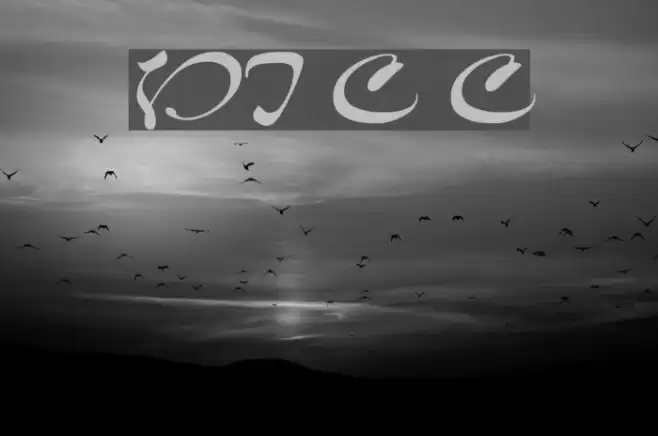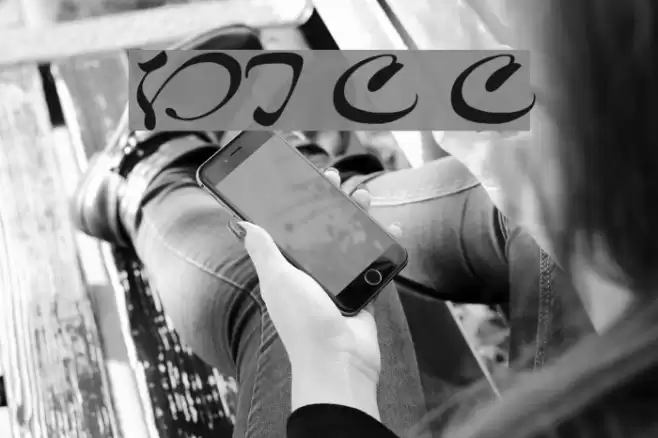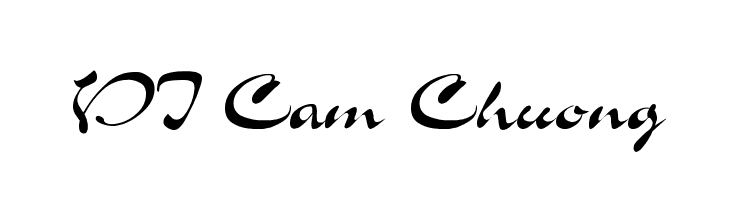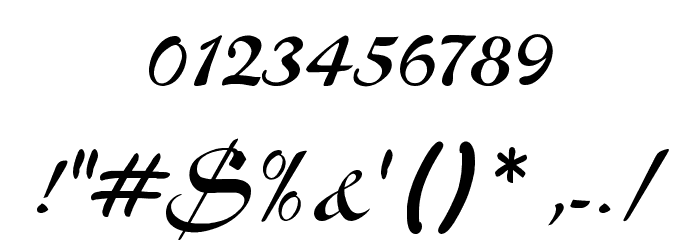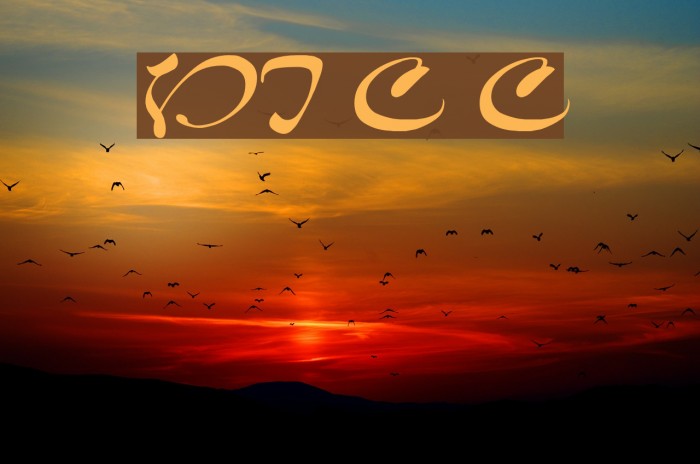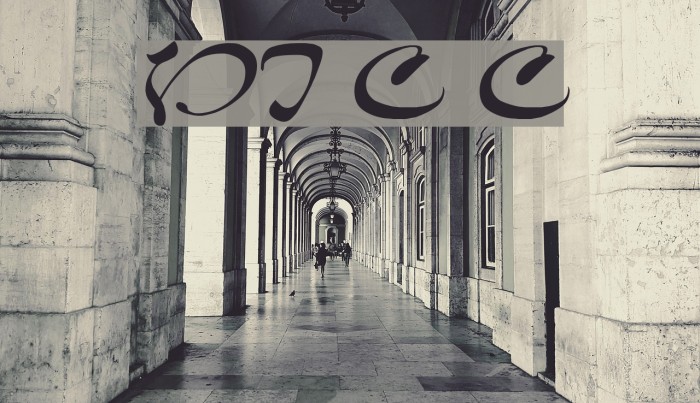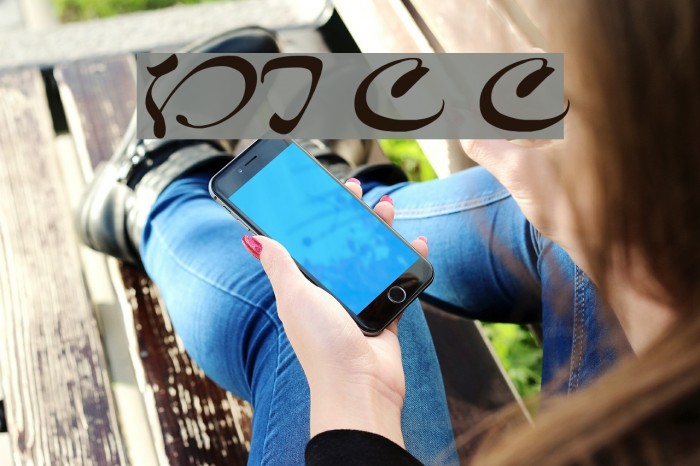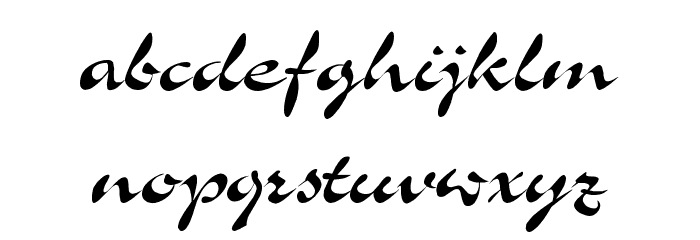
VI Cam Chuong Font
VI Cam Chuong Description
This elegant script font features fluid, cursive strokes that give it a sophisticated and artistic appearance. The letters are connected, creating a seamless flow that mimics traditional calligraphy. The uppercase letters are ornate, with flourishes that add a touch of grandeur, while the lowercase letters maintain a consistent style with smooth curves and loops. The numerals and special characters are designed to match the overall aesthetic, ensuring a cohesive look across all text. This font is perfect for projects that require a touch of elegance and refinement.
An elegant script font with fluid, cursive strokes and calligraphic style from Uncategorized fonts.
- Proposed Projects: Ideal for wedding invitations, elegant branding, greeting cards, and artistic projects.
- Overall Style: Classic
- Use Case: Logos, Invitations, Decorative text